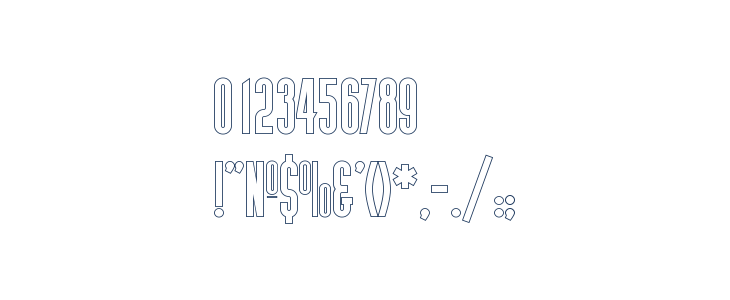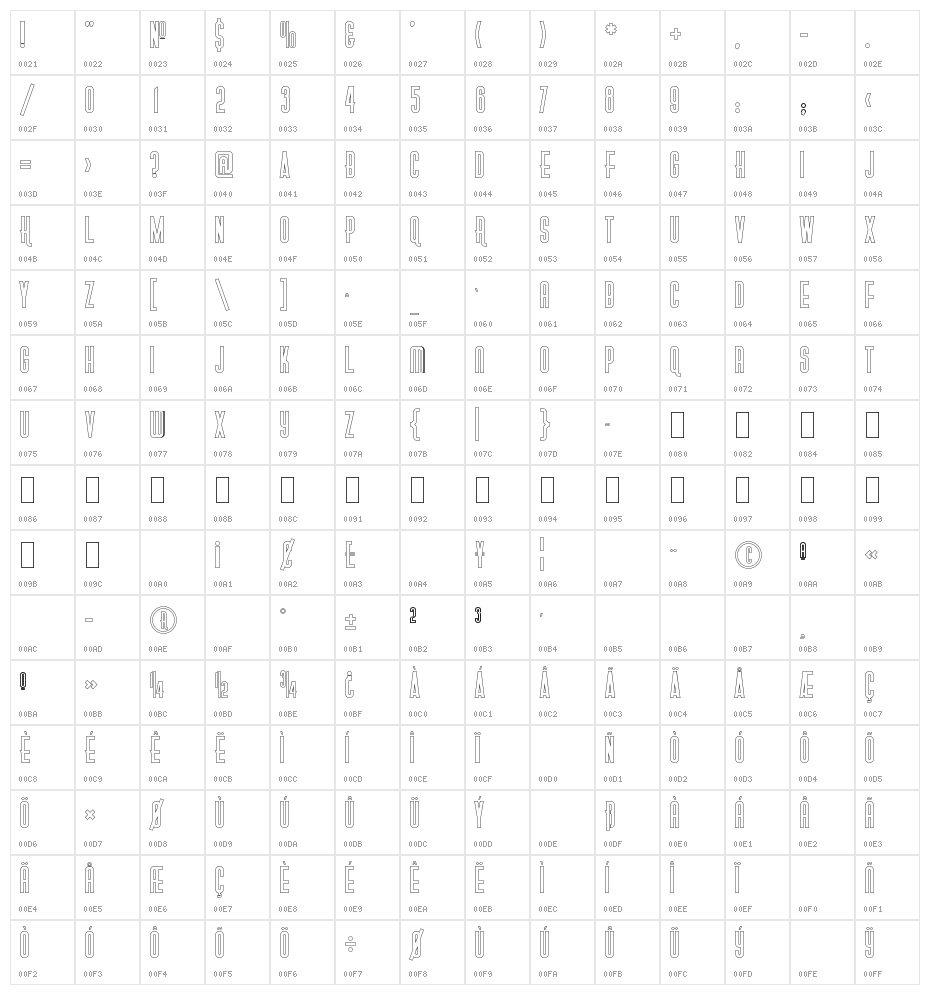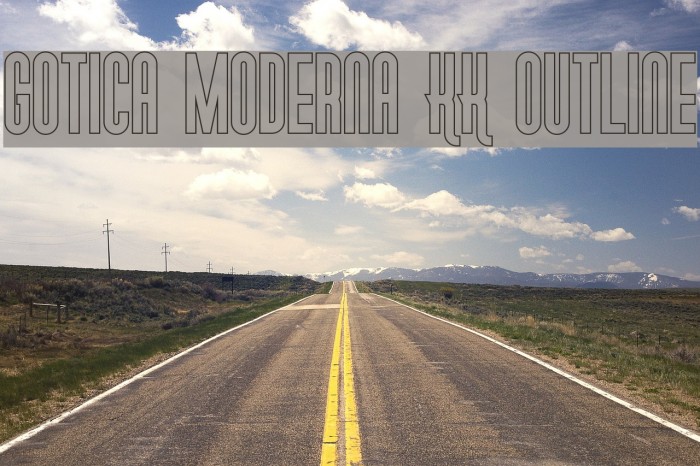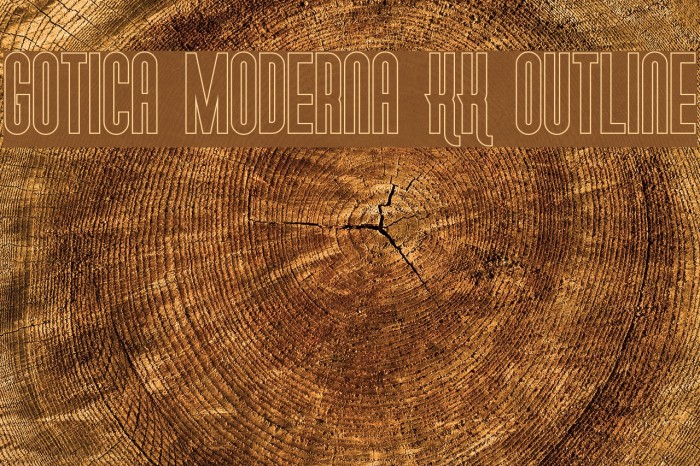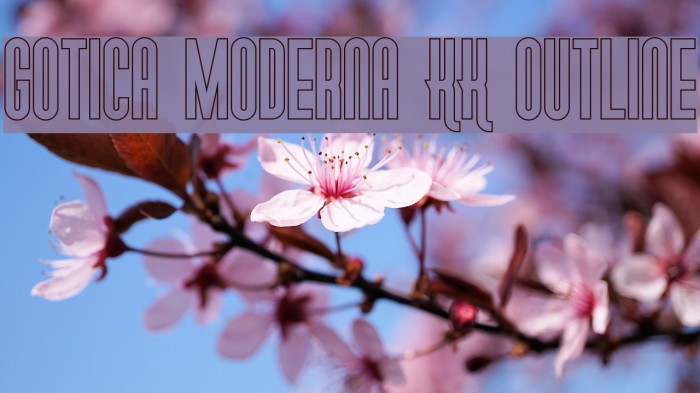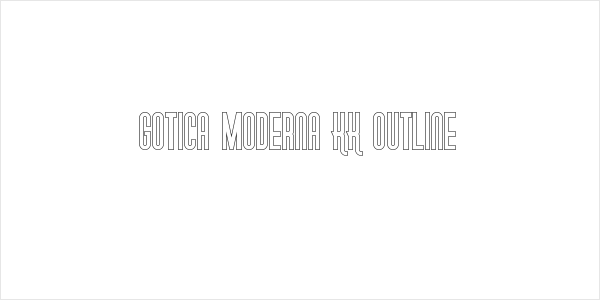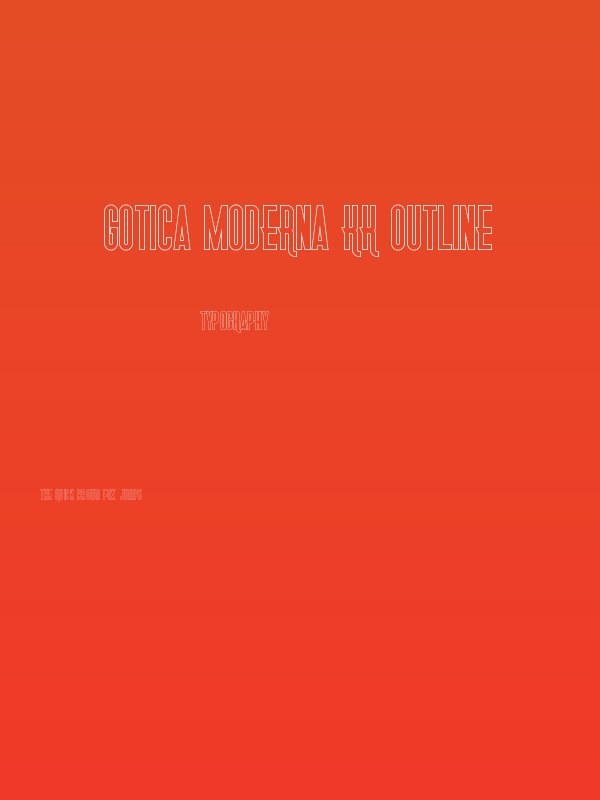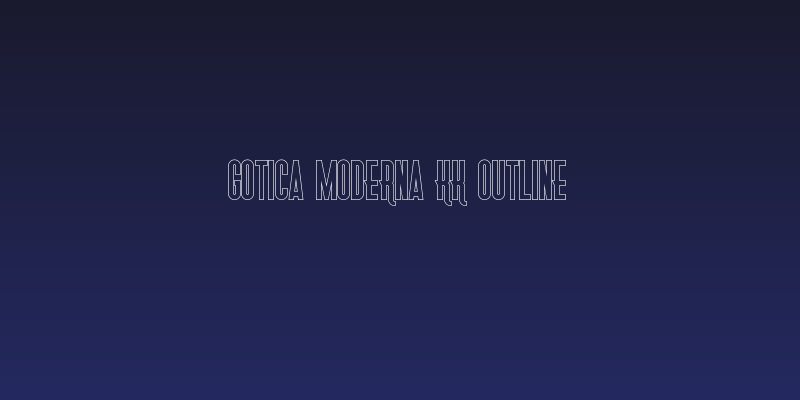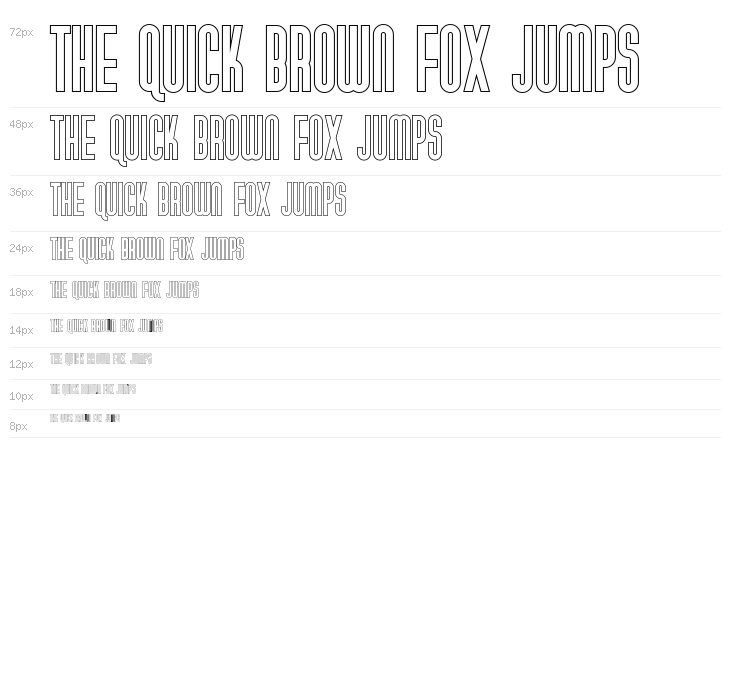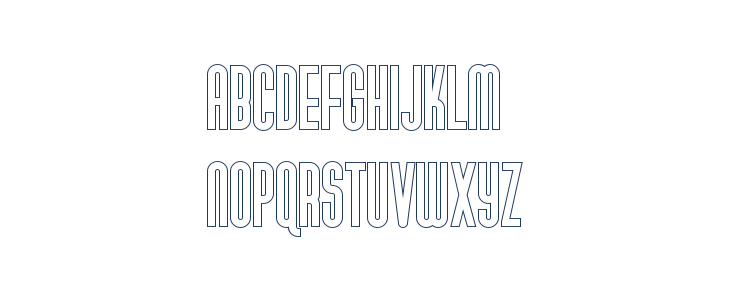
Gotica Moderna KK Outline Font
Gotica Moderna KK Outline Description
This font features a modern, outlined style with a bold and structured appearance. The characters are uppercase and lowercase, with a geometric design that emphasizes verticality and symmetry. The outline effect gives it a unique, eye-catching look, making it suitable for display purposes. The numerals and special characters maintain the same outlined aesthetic, ensuring consistency across all glyphs. The font's clean lines and contemporary feel make it versatile for various design projects.
| Proposed Projects | Ideal for posters, logos, headlines, and branding materials where a striking, modern look is desired. |